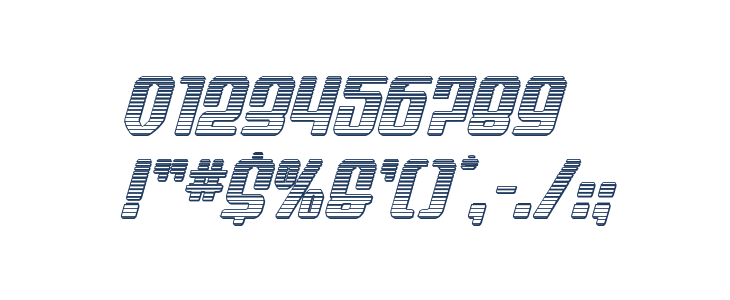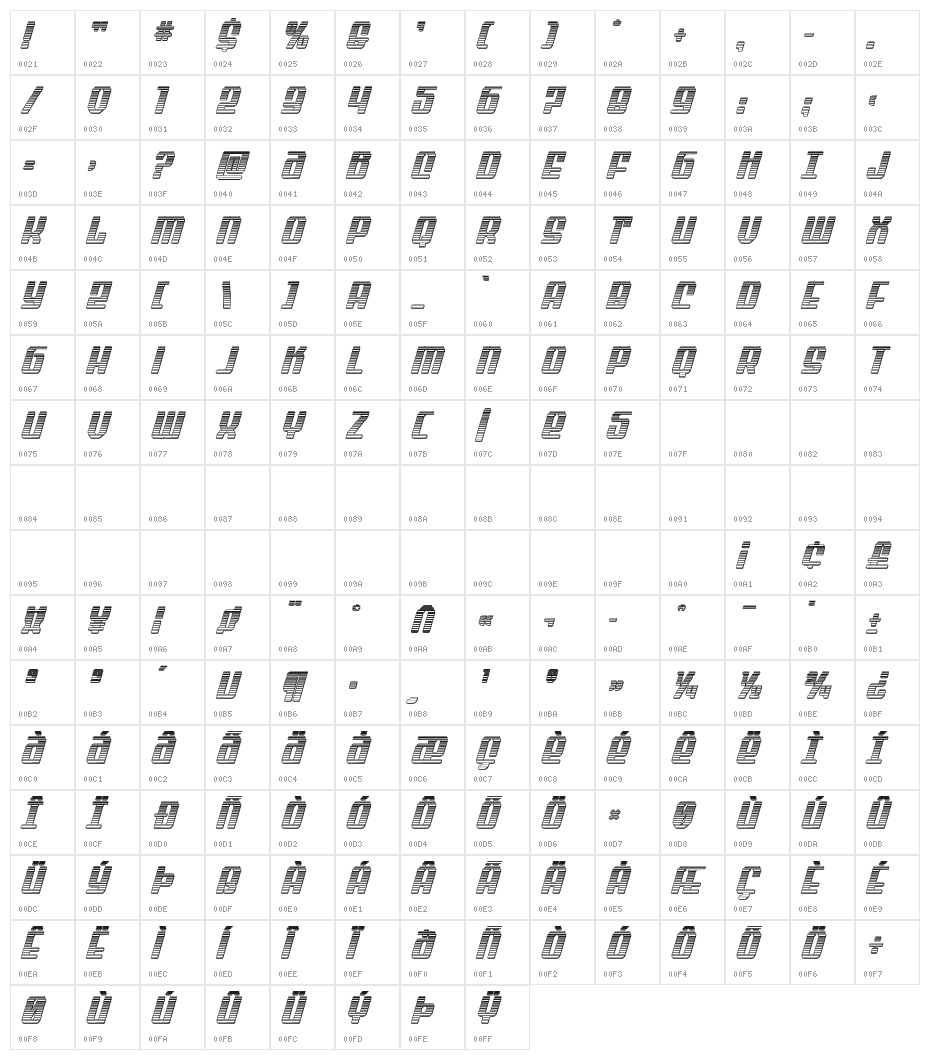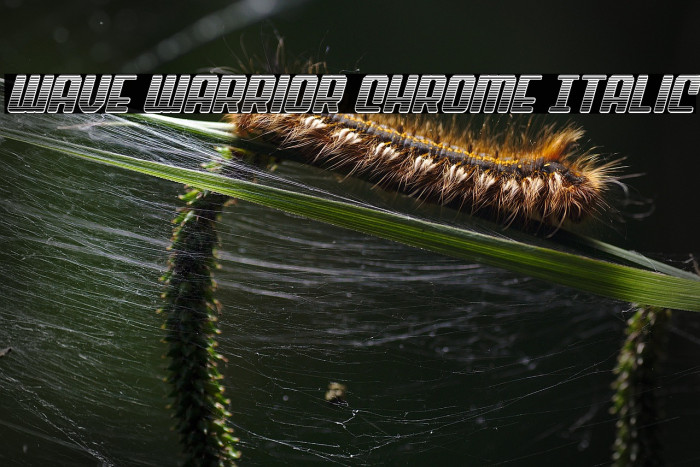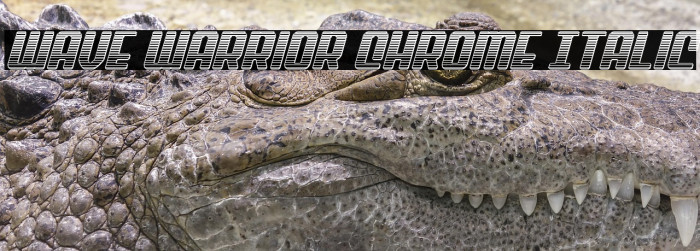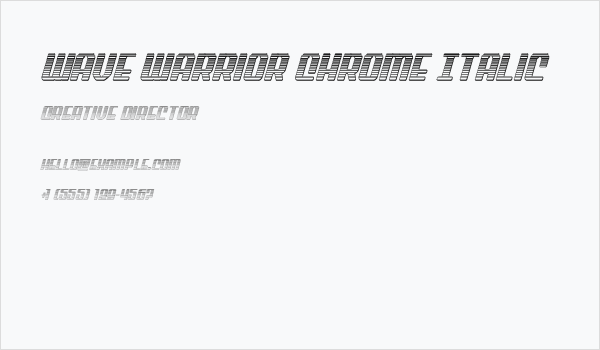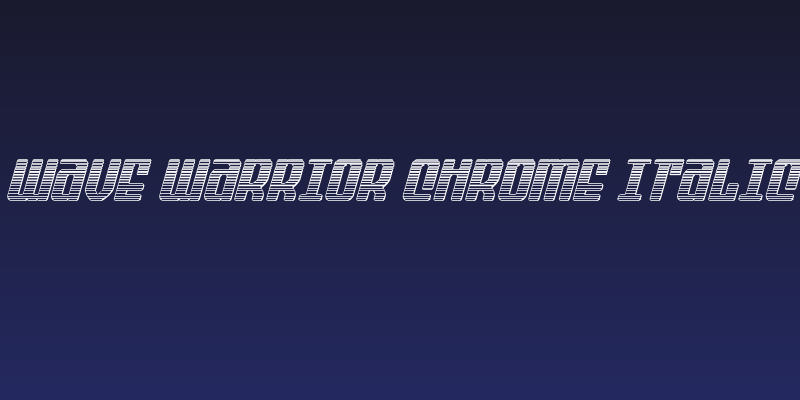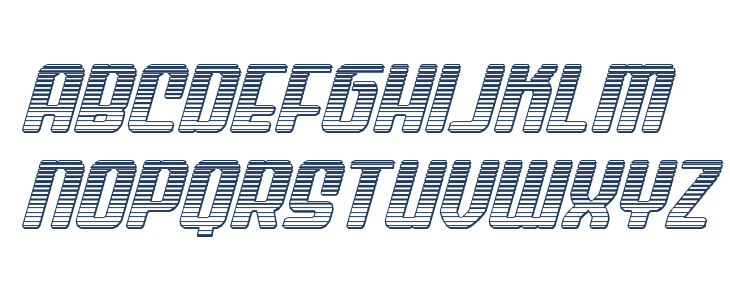
Wave Warrior Chrome Italic Font
Wave Warrior Chrome Italic Description
This font features a bold, futuristic design with a distinct chrome-like appearance. The characters are italicized, giving them a dynamic and forward-leaning posture. Each letter is constructed with parallel lines that create a sense of depth and movement, reminiscent of retro-futuristic aesthetics. The uppercase and lowercase letters maintain a consistent style, with the numerals and special characters following suit. The overall look is sleek and modern, making it ideal for projects that require a strong, eye-catching typeface.
| Overall Style | Futuristic, Retro |
| Proposed Projects | Ideal for sci-fi themed designs, video game titles, tech branding, and futuristic posters. |